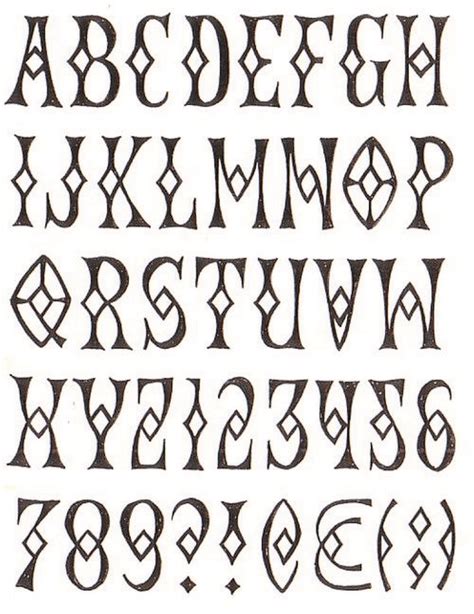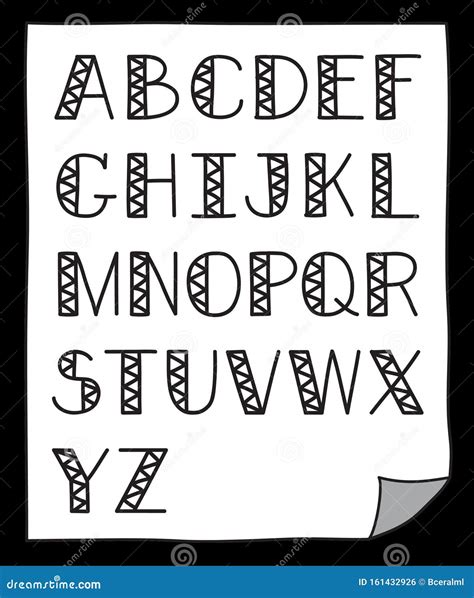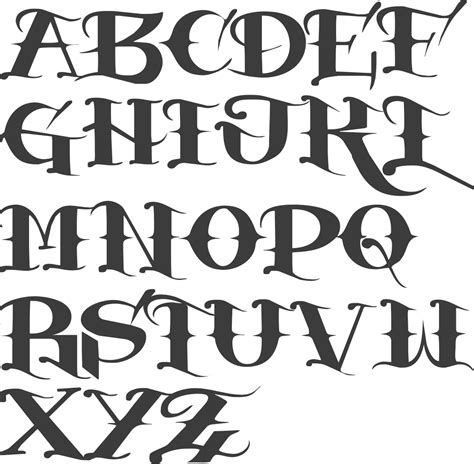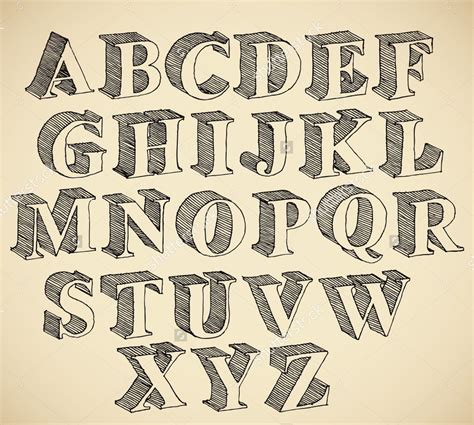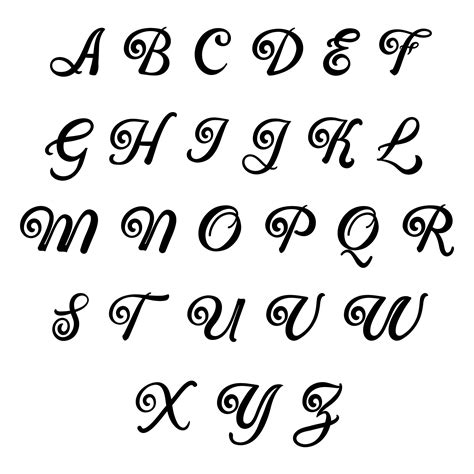
In the expansive world of graphic design and visual communication, the distinction between lettering styles and fonts is often blurred, yet it remains the cornerstone of effective creative expression. Whether you are a budding designer, a stationery enthusiast, or a brand strategist, understanding how to manipulate letterforms is essential for crafting messages that resonate. While fonts are pre-designed sets of characters that you can pull from a digital library, lettering is the art of drawing letters, where each stroke is intentionally placed to create a unique piece of visual art. Mastering this craft requires both an eye for structure and the patience to experiment with various styles, ranging from classic elegance to bold, modern experimentation.
Understanding the Foundation: Lettering vs. Typography
To truly excel in design, one must first recognize that lettering styles and fonts serve different functions. Typography is the system of arranging typefaces (the collection of characters like Arial or Times New Roman), whereas lettering is a custom-made solution designed for a specific project. When you choose a font, you are selecting a pre-existing aesthetic, but when you engage in lettering, you are building the anatomy of the character from scratch.
- Fonts: Consistent, versatile, and optimized for readability across various digital platforms.
- Lettering: Bespoke, expressive, and highly illustrative, often used for logos, signage, or editorial titles.
The beauty of custom lettering lies in its ability to break the rules that fonts must follow. While a font must maintain a consistent width and height to be usable in a word processor, a lettering artist can stretch, twist, and embellish letters to fit a specific container or to evoke a certain emotion that a standard typeface simply cannot convey.
Popular Lettering Styles to Master
Developing a signature aesthetic involves exploring various categories of scripts and structures. By studying these distinct categories, you can better categorize your own work and understand which style fits a particular project’s tone.
| Style | Visual Characteristic | Best Used For |
|---|---|---|
| Serif | Small lines or strokes attached to the ends of letters | Traditional, authoritative, or editorial designs |
| Sans-Serif | Clean, minimalist lines without decorative feet | Modern, tech-focused, and clean UI/UX design |
| Script | Fluid, handwriting-inspired, connected strokes | Wedding invitations, elegant branding, creative labels |
| Blackletter | High-contrast, gothic, and dramatic strokes | Historical themes, rock-n-roll, or bold artistic headers |
As you experiment with these lettering styles and fonts, consider how weight, slant, and spacing affect your composition. A heavy, thick-stroked serif conveys strength, while a thin, cursive script feels delicate and intimate. By keeping a sketchbook, you can practice these styles repeatedly until they become second nature.
💡 Note: Always remember to start with a pencil sketch before committing to ink; lettering is an iterative process that benefits significantly from rough drafting and grid alignment.
Techniques for Selecting the Right Font
When you aren’t drawing letters from scratch, selecting the perfect font is an exercise in restraint and strategy. A common mistake designers make is choosing a typeface simply because it looks “pretty.” Instead, focus on the psychological impact of the typeface on the viewer. If your brand is meant to feel professional, a humanist sans-serif might be your best choice. If you are creating a playful or informal brand, a rounded or whimsical typeface will be much more effective.
Key considerations for font pairing:
- Contrast: Pair a bold, decorative display font with a simple, readable body font to create hierarchy.
- Consistency: Limit your design to two or three fonts maximum to avoid visual clutter.
- Context: Ensure the font remains legible at the intended size; intricate script fonts often fail at small scales.
Ultimately, the marriage of lettering styles and fonts in a single layout can create a sophisticated visual hierarchy. By using custom-lettered headings and pairing them with clean, classic fonts for body text, you can guide the reader's eye exactly where you want it to go, creating a balanced and professional design outcome.
Tips for Improving Your Lettering Skills
Becoming proficient at lettering is a marathon, not a sprint. Beginners often feel discouraged when their initial attempts do not look like the polished work found on social media. However, professional lettering artists spend hours practicing basic strokes—loops, arches, and straight lines—before they ever attempt complex decorative flourishes.
Try incorporating these habits into your daily routine:
- Study Anatomy: Learn the terminology of letter parts—the ascenders, descenders, stems, and serifs. Knowing how letters are built makes it easier to reconstruct them creatively.
- Use Guides: Use tracing paper or lightboxes to practice letter spacing (kerning) until your eye becomes accustomed to balanced intervals.
- Analyze Masters: Take time to deconstruct the work of experienced typographers. Look at how they handle negative space and how they balance the weight of their strokes.